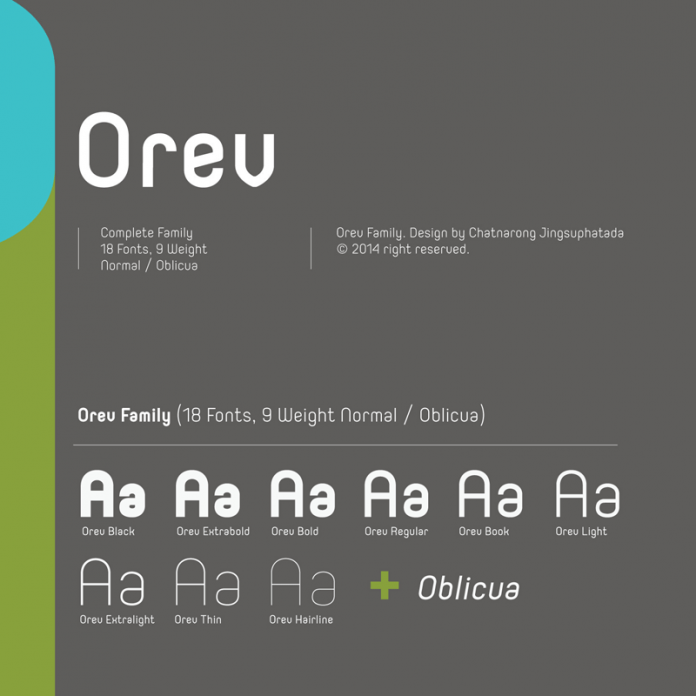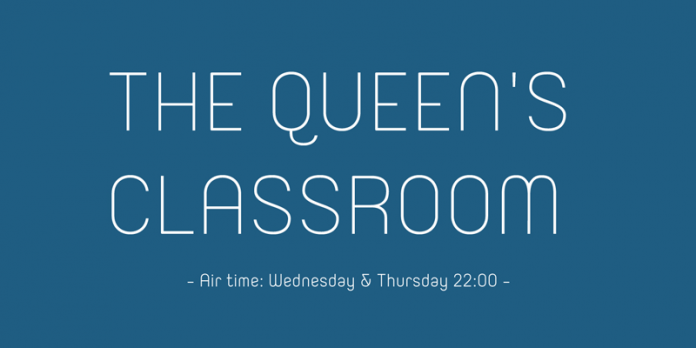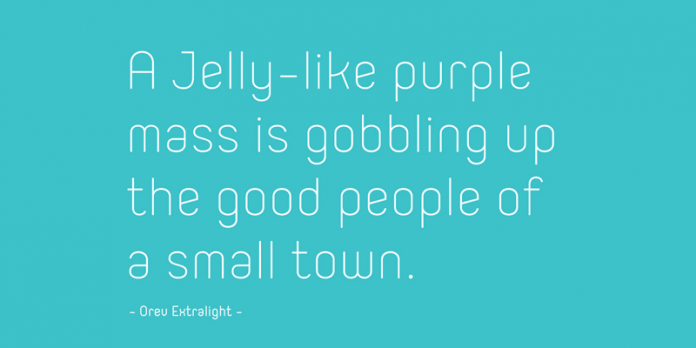
The Orev font family for multiple use.
Chatnarong Jingsuphatada is a Thailand based typeface designer of foundry Typesketchbook. In 2014, he has created Orev, a type family that consists of 18 fonts, including 9 weights available as normal and oblique style. It’s a unique and modern sans typeface, which is well suited for a variety of typographic applications such as headlines and small texts. The Orev font family supports multiple languages and is available as both webfont and desktop font.